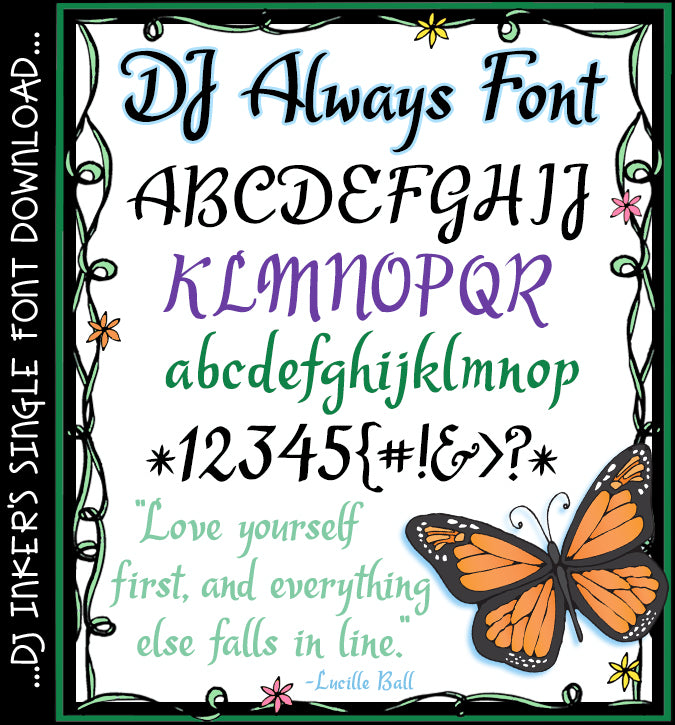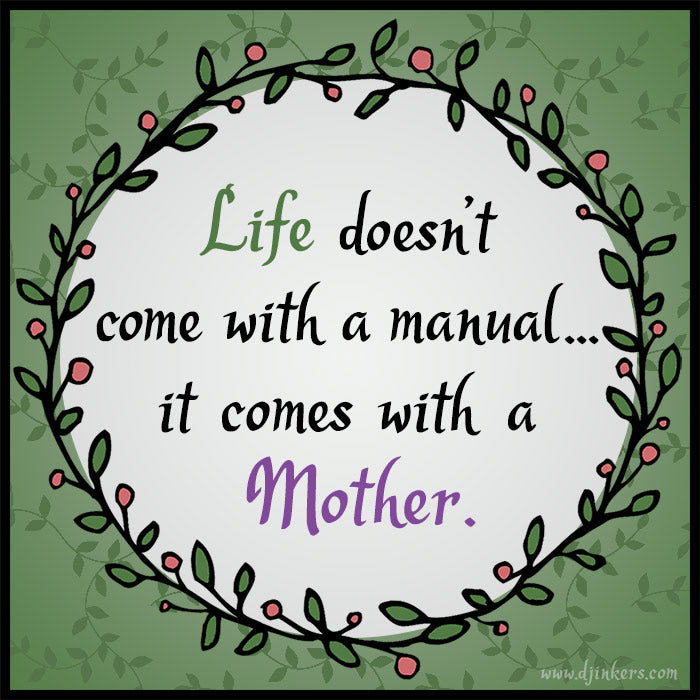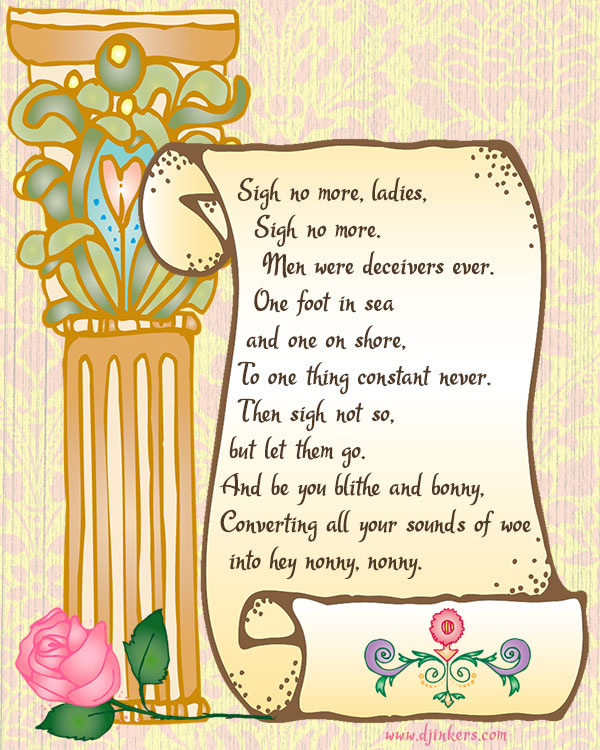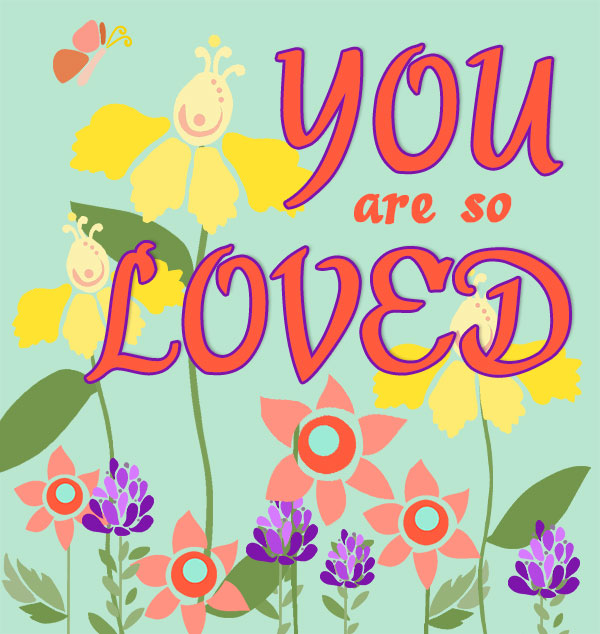
DJ Always Font - Brush Script Lettering Download
With a beautiful font by DJ Inkers, you'll always make a lasting impression. Use this font to add class & style to fancy invitations, cards, weddings, graduations, home crafts, memory books and more. This versatile brush lettering works nicely for a bold, scripted headline, but is still easy to read in smaller text sizes. Let DJ Always transform your lettering into a work of art.